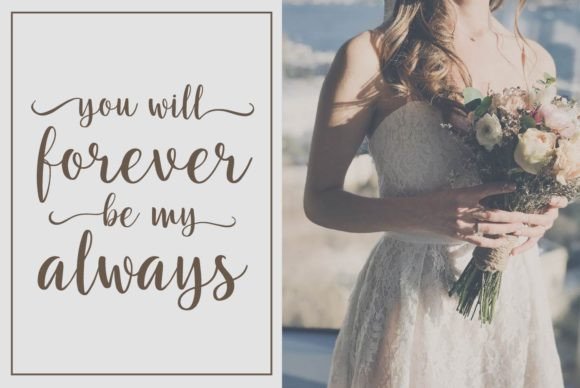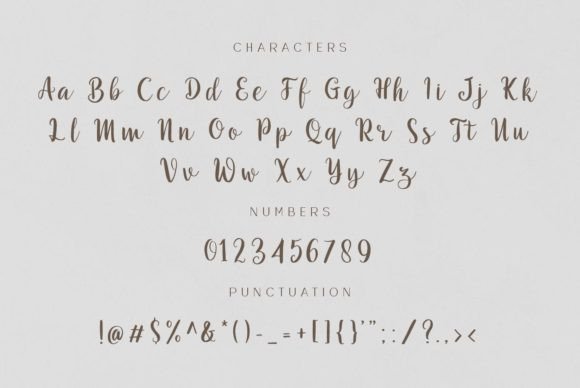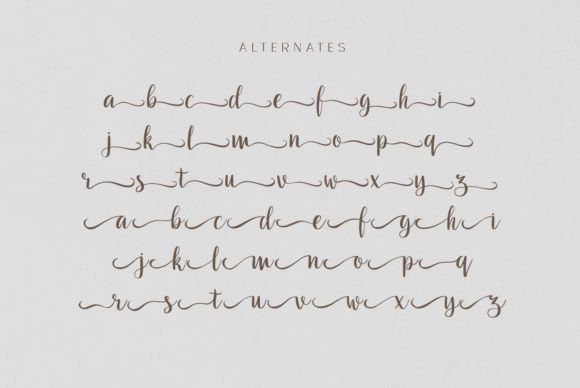
Eternal Lights Font: Elevate Your Crafty Projects with Authentic Typography
Are you a designer or crafter looking for a font that can add a touch of elegance and sophistication to your projects? Look no further than Eternal Lights Font. This delicate and well-rounded handwritten font is perfect for crafty projects that need authentic typography. In this article, we’ll explore the features and benefits of Eternal Lights Font, and show you how to use it to take your designs to the next level.
What is Eternal Lights Font?
Eternal Lights Font is a beautiful, handwritten font that is designed to add a touch of elegance and sophistication to your projects. Its delicate and well-rounded letters make it perfect for a variety of crafty projects, including wedding invitations, birthday cards, personal branding, elegant logos, and more. The font is highly versatile and can be used for both personal and commercial projects.
Key Features of Eternal Lights Font
- Delicate and well-rounded letters: The font features delicate and well-rounded letters that are perfect for adding a touch of elegance and sophistication to your projects.
- Handwritten style: The font has a beautiful, handwritten style that is perfect for crafty projects that need authentic typography.
- Highly versatile: The font can be used for a variety of projects, including wedding invitations, birthday cards, personal branding, elegant logos, and more.
- Easy to read: The font is highly legible, making it perfect for projects that require clear and easy-to-read text.
Benefits of Using Eternal Lights Font
There are many benefits to using Eternal Lights Font in your crafty projects. Here are a few:
- Adds elegance and sophistication: The font adds a touch of elegance and sophistication to your projects, making them stand out from the crowd.
- Perfect for crafty projects: The font is perfect for crafty projects that need authentic typography, such as wedding invitations, birthday cards, and personal branding.
- Highly versatile: The font can be used for a variety of projects, making it a great addition to your font library.
How to Use Eternal Lights Font
Using Eternal Lights Font is easy. Here are a few tips to get you started:
- Pair it with other fonts: Eternal Lights Font pairs well with other fonts, such as sans-serif fonts and script fonts.
- Use it for headings and titles: The font is perfect for headings and titles, where you want to add a touch of elegance and sophistication.
- Experiment with different colors: The font looks great in a variety of colors, from bold and bright to soft and pastel.
Project Ideas for Eternal Lights Font
Eternal Lights Font is perfect for a variety of crafty projects. Here are a few ideas to get you started:
- Wedding invitations: The font is perfect for wedding invitations, where you want to add a touch of elegance and sophistication.
- Birthday cards: The font is great for birthday cards, where you want to add a personal touch.
- Personal branding: The font is perfect for personal branding, where you want to create a professional and elegant image.
- Elegant logos: The font is great for creating elegant logos, where you want to add a touch of sophistication.
Eternal Lights Font is a beautiful, handwritten font that is perfect for crafty projects that need authentic typography. Its delicate and well-rounded letters make it perfect for a variety of projects, including wedding invitations, birthday cards, personal branding, elegant logos, and more. With its highly versatile design and easy-to-use features, Eternal Lights Font is a great addition to any font library.